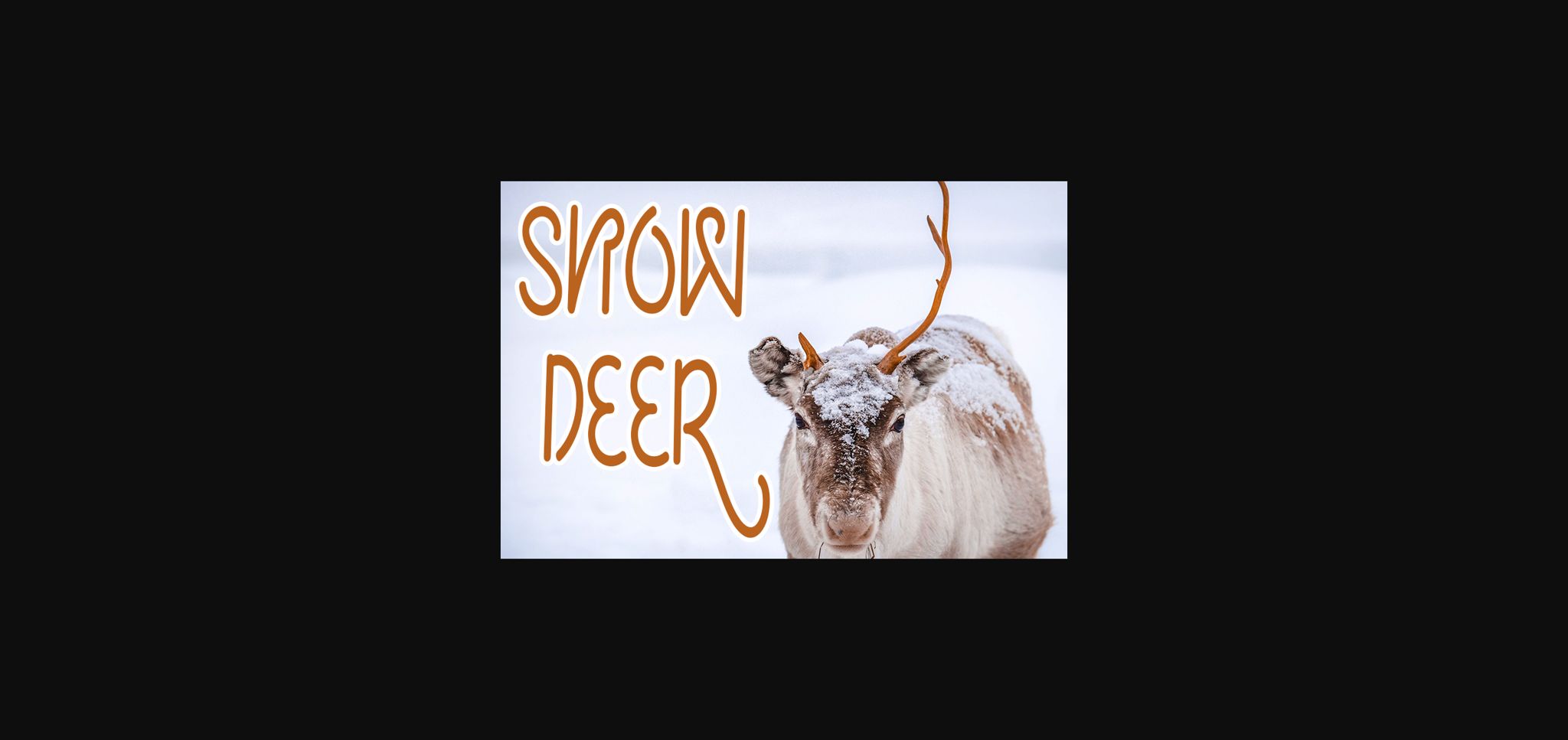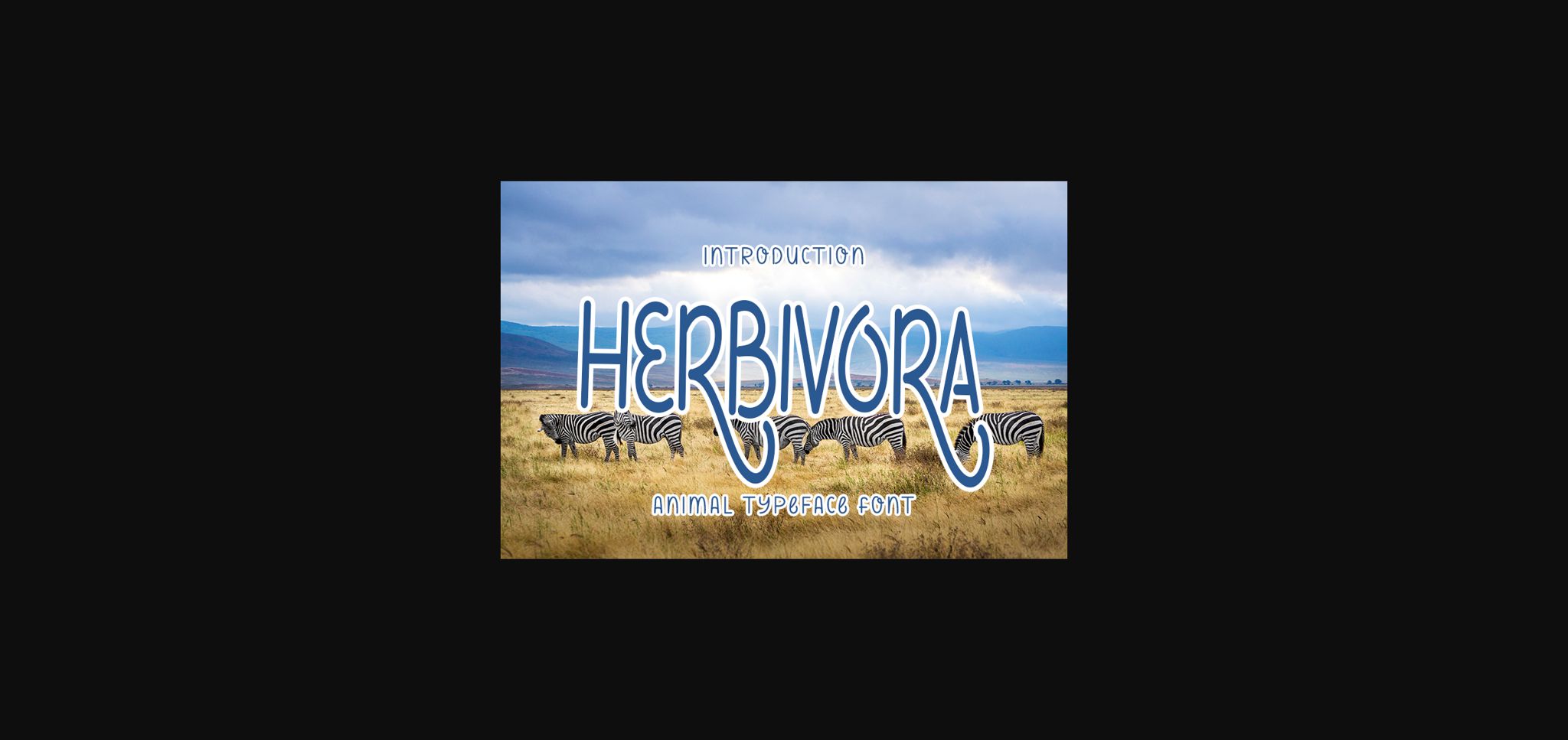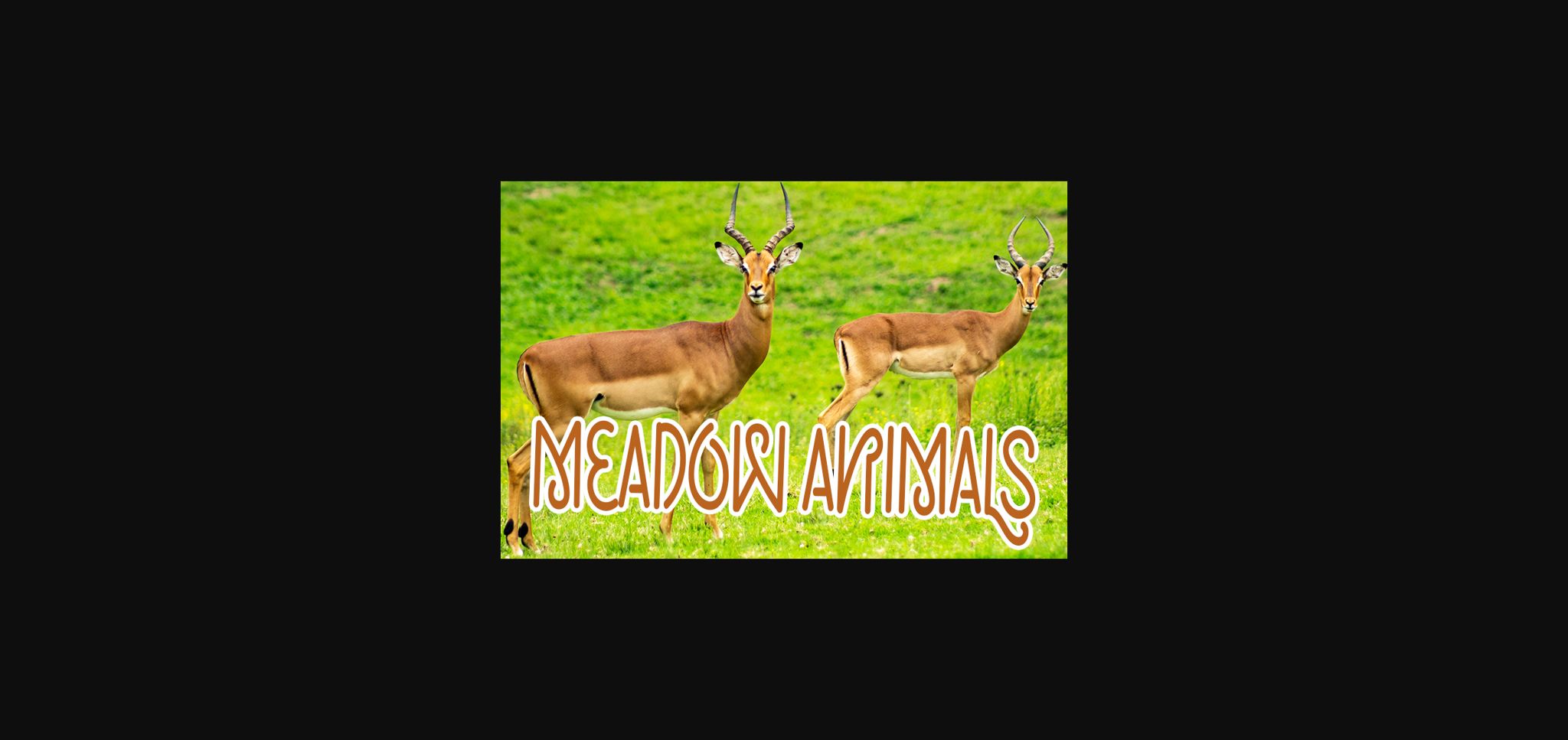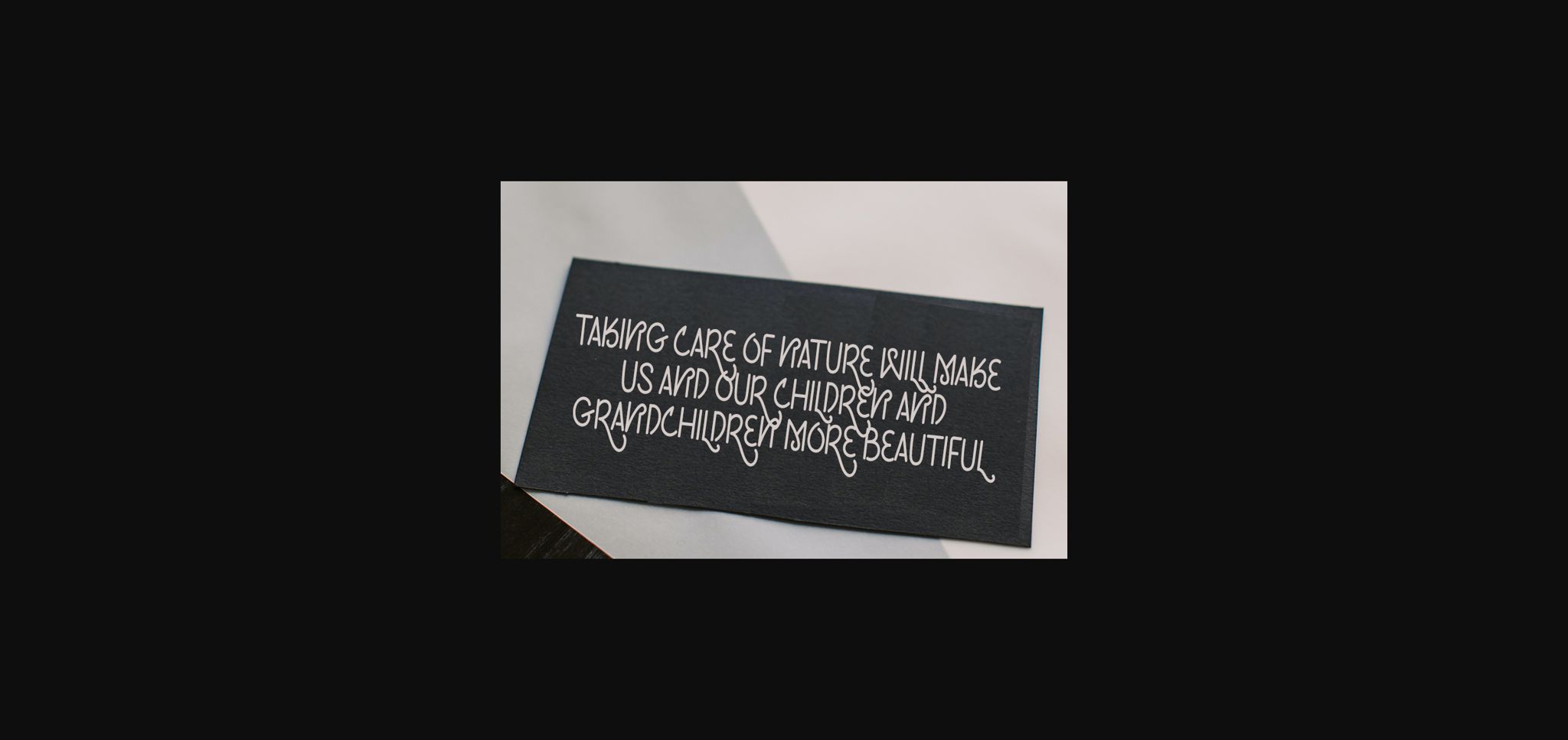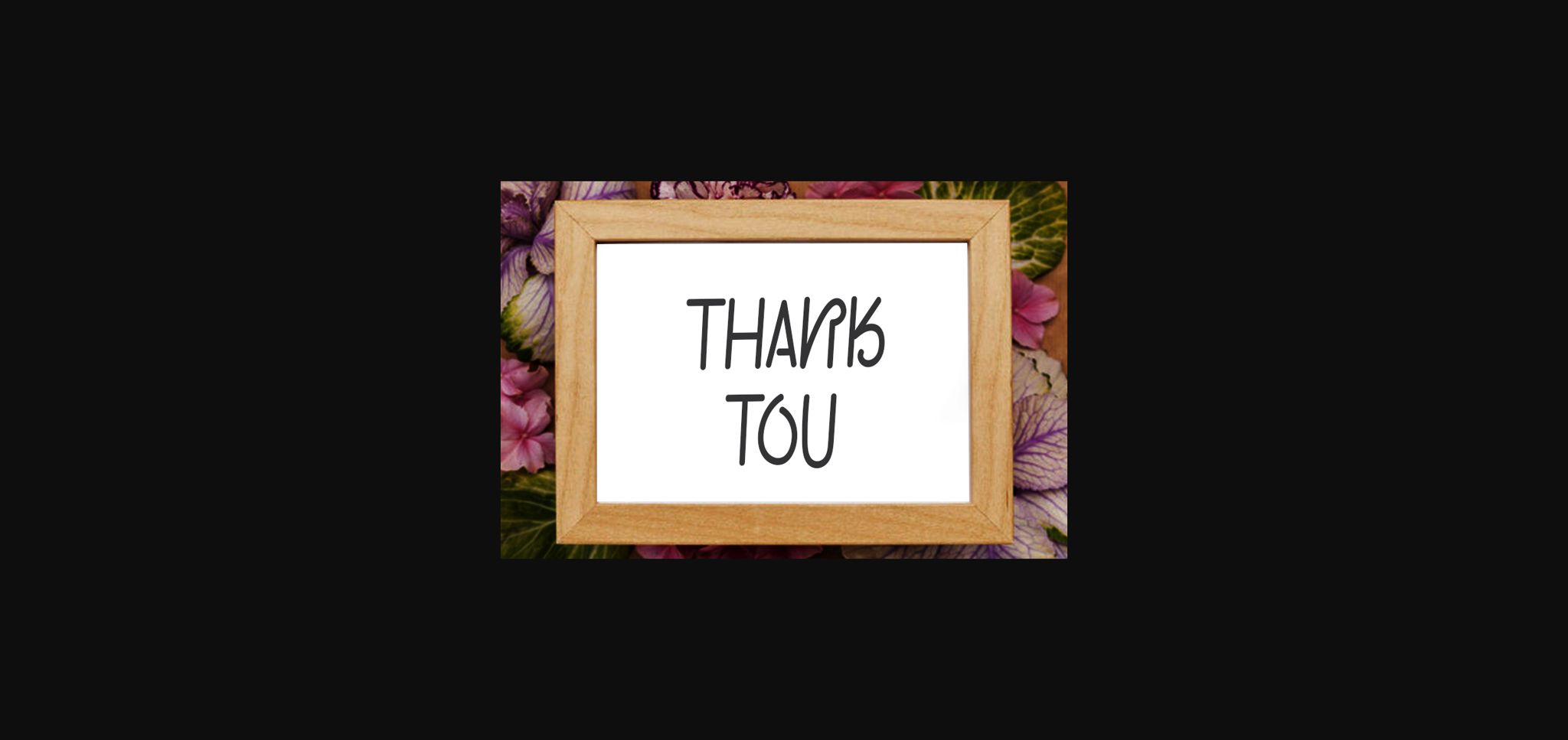
Herbivora Font
About Herbivora Font
Herbivora is an elegant and simple lettered sans serif font. It looks stunning on wedding invitations, thank you cards, quotes, greeting cards, logos, business cards and every other design which needs a trendy touch.